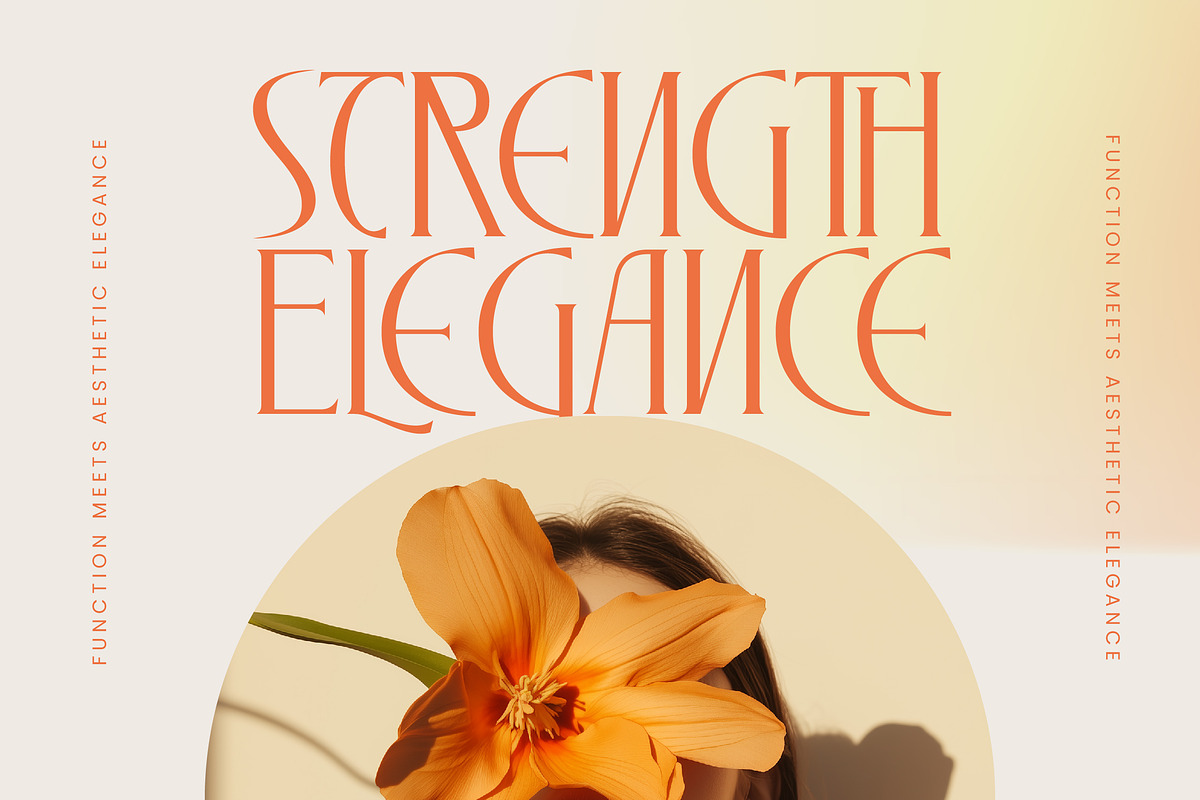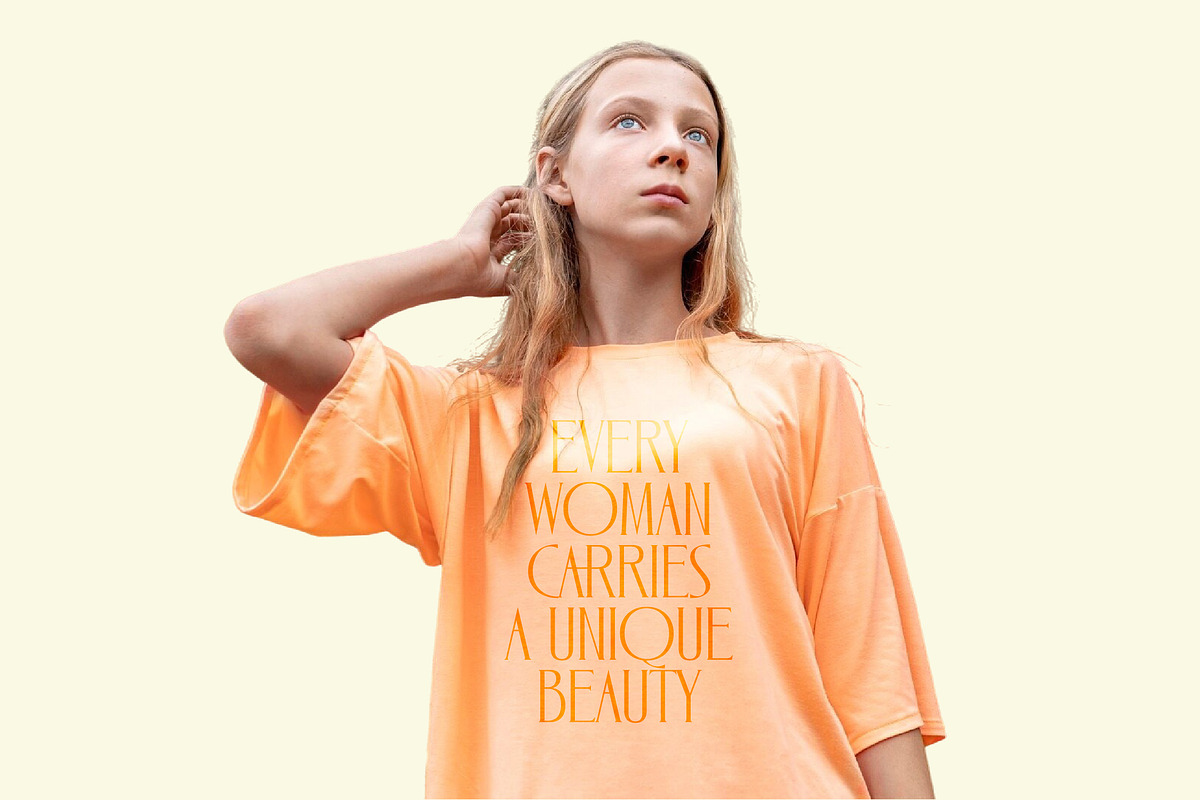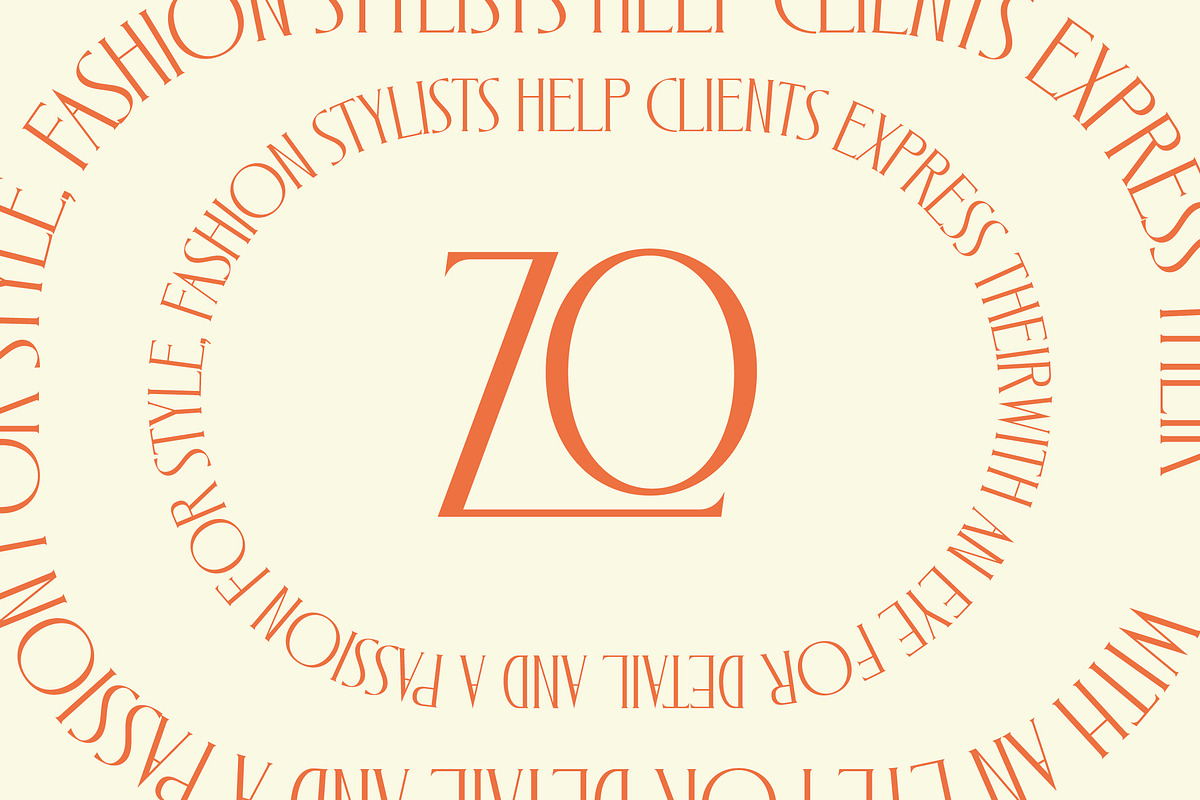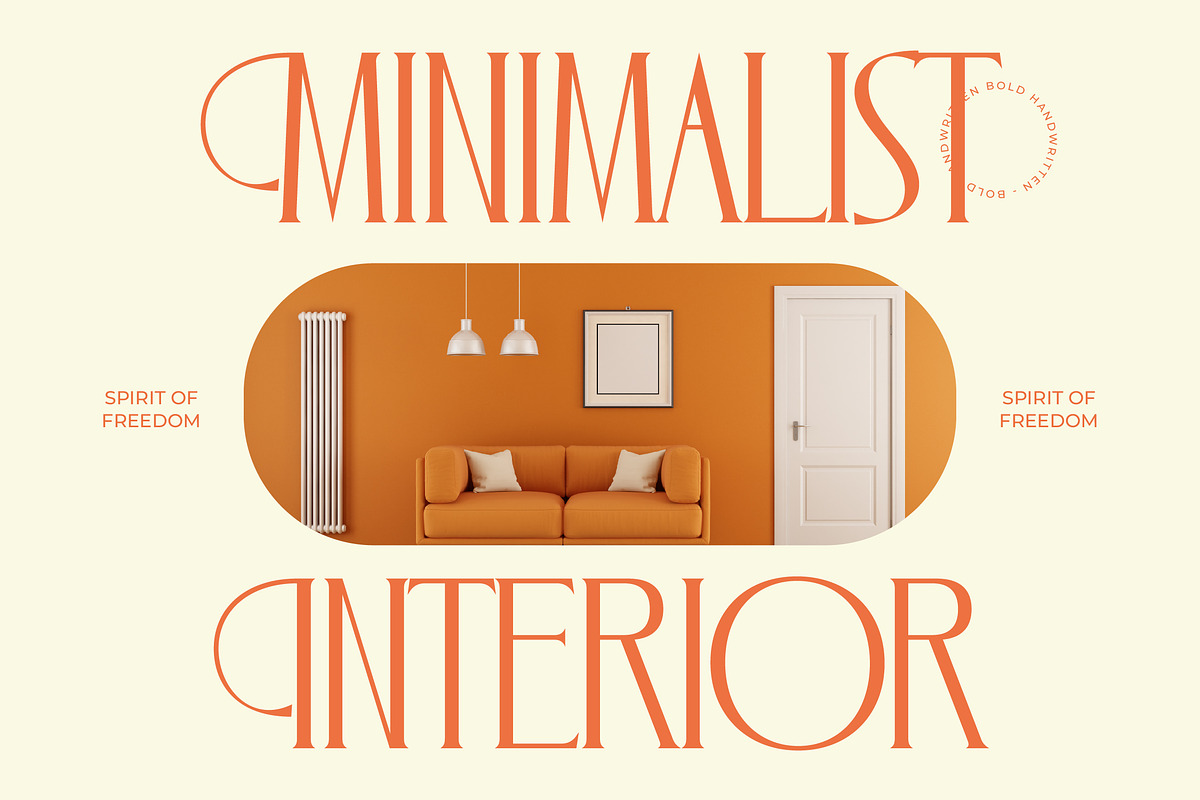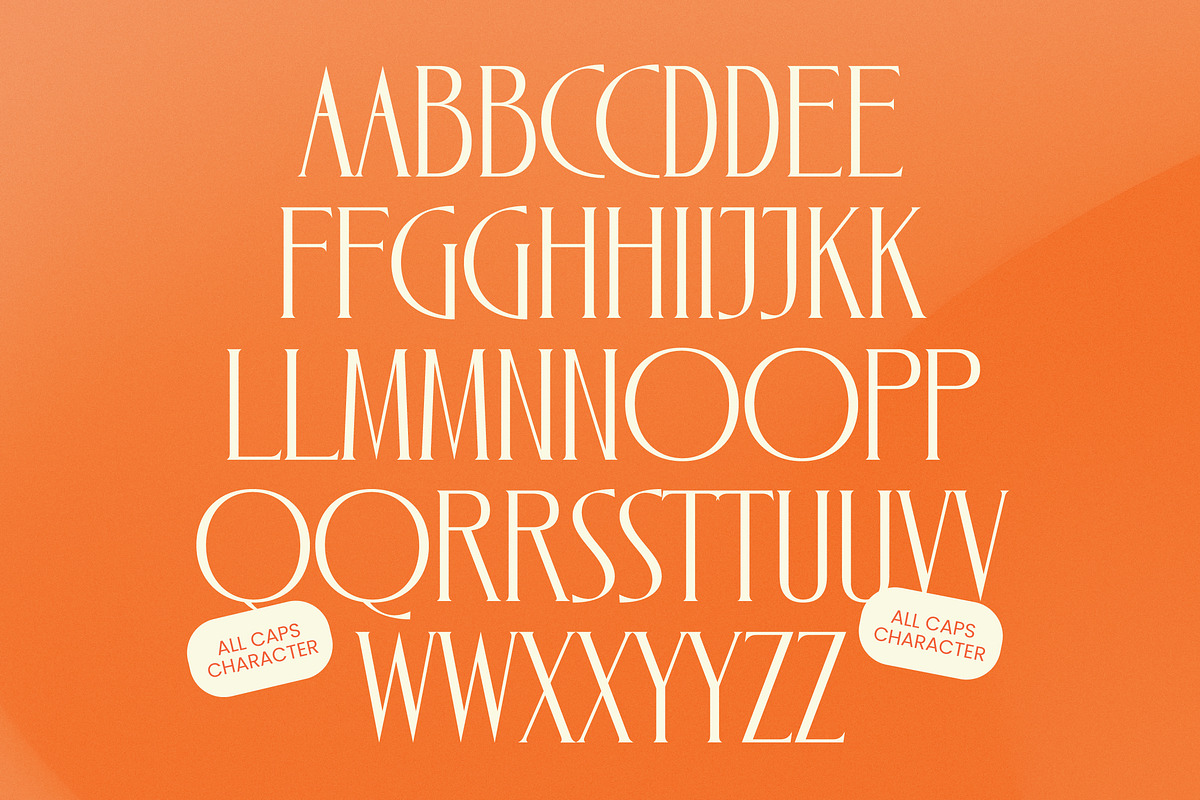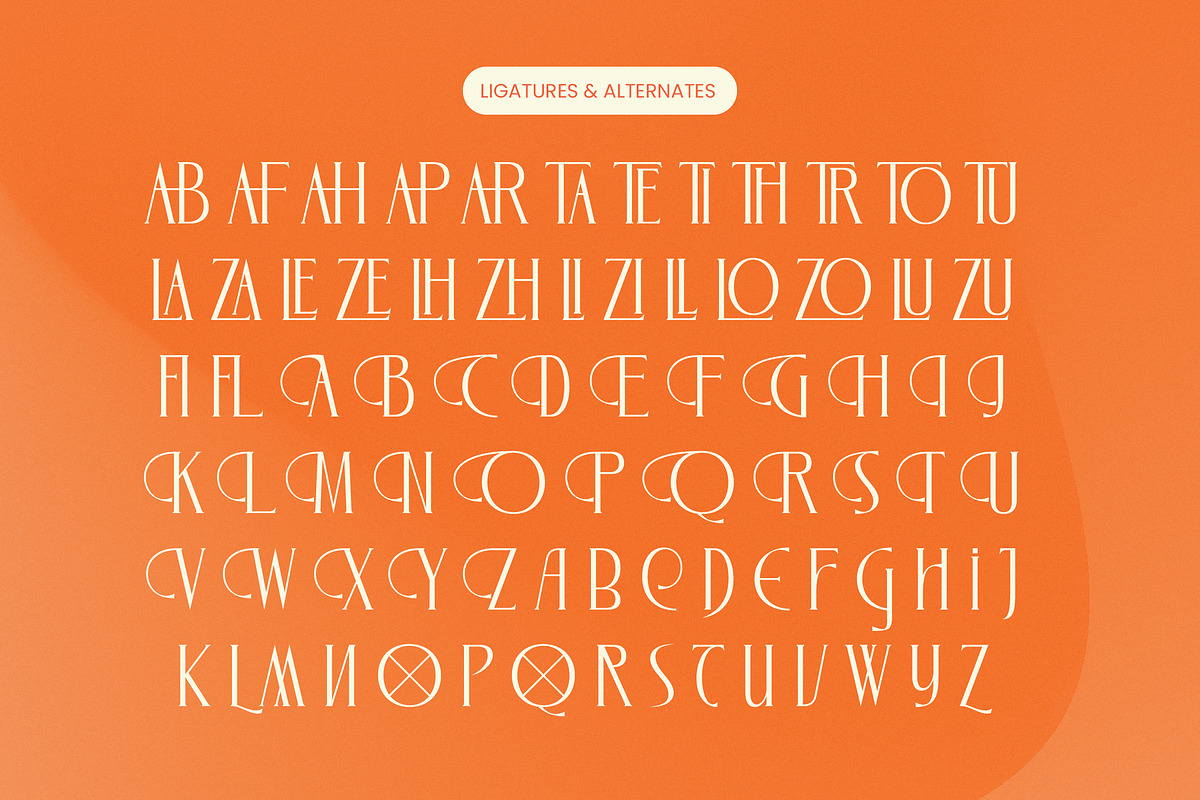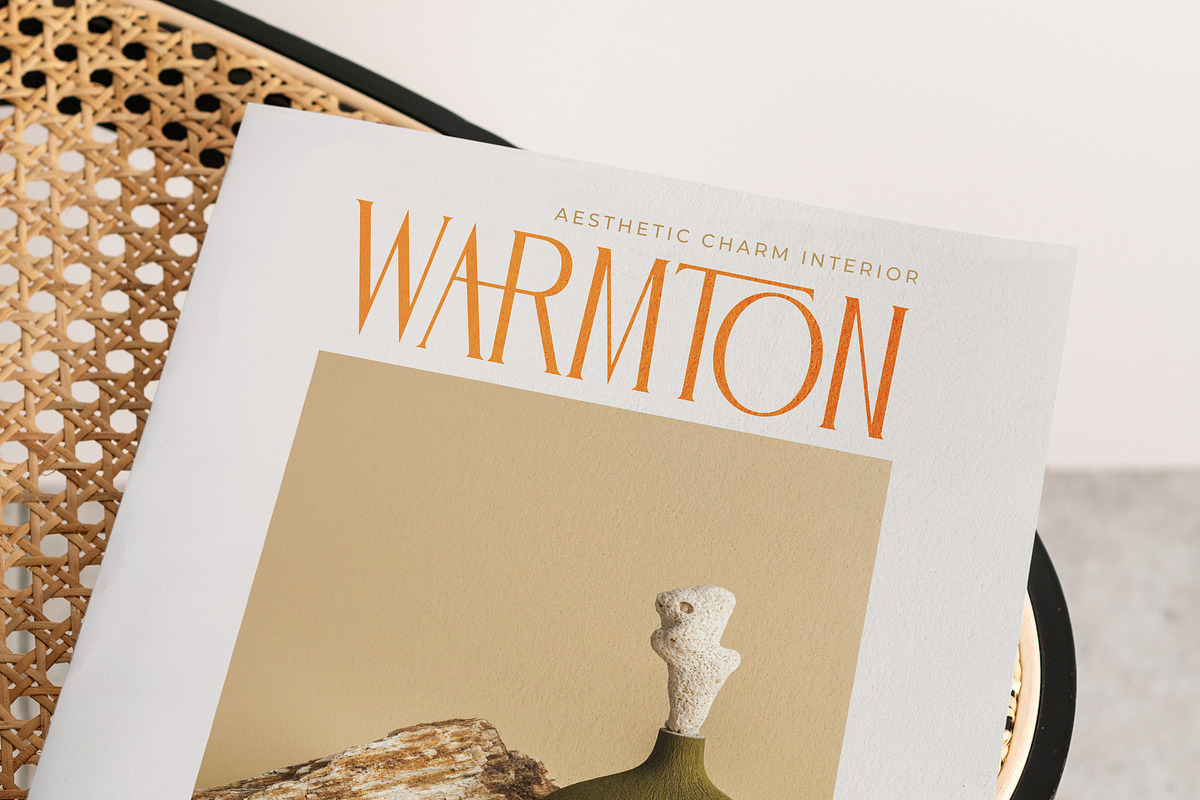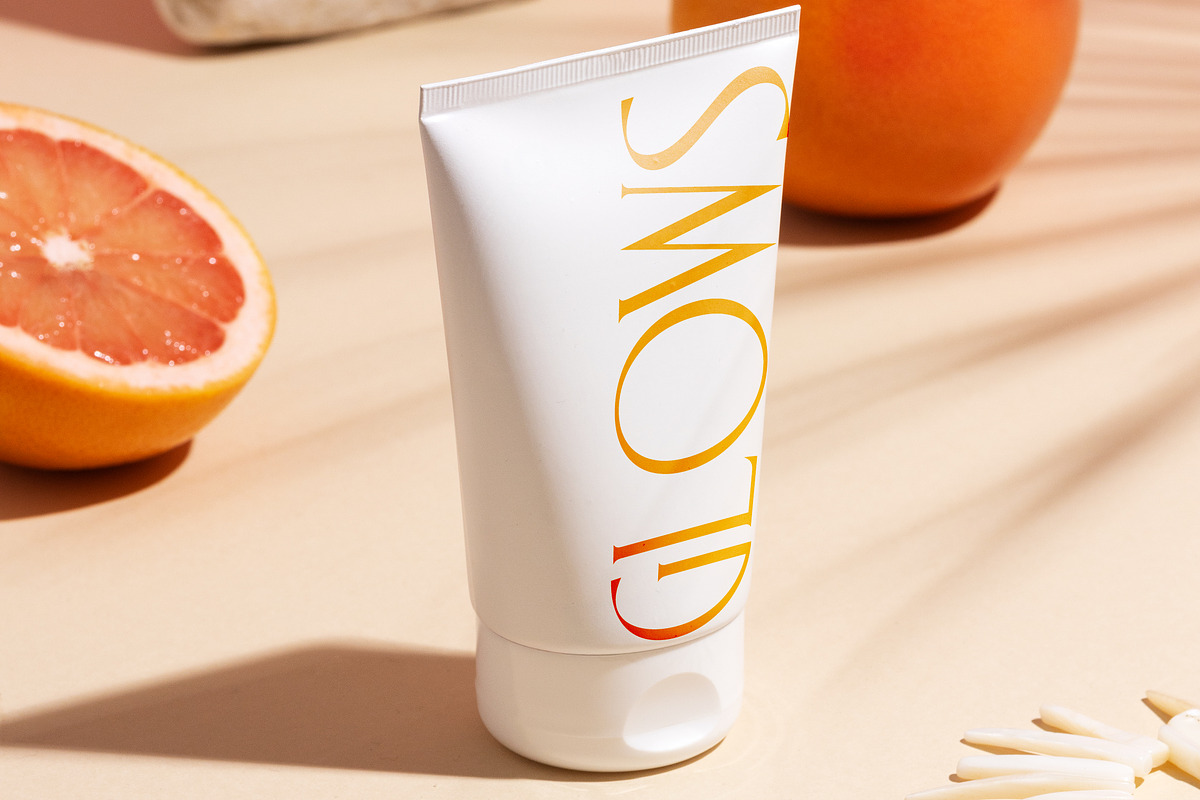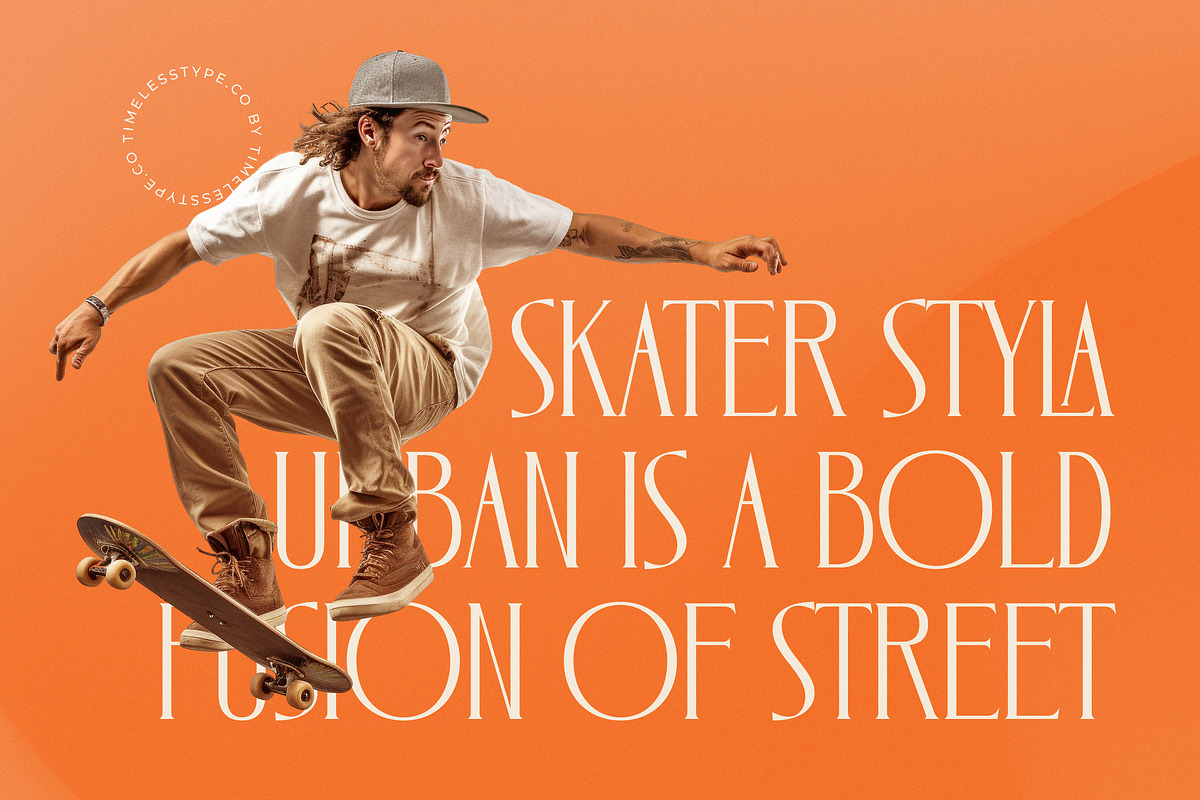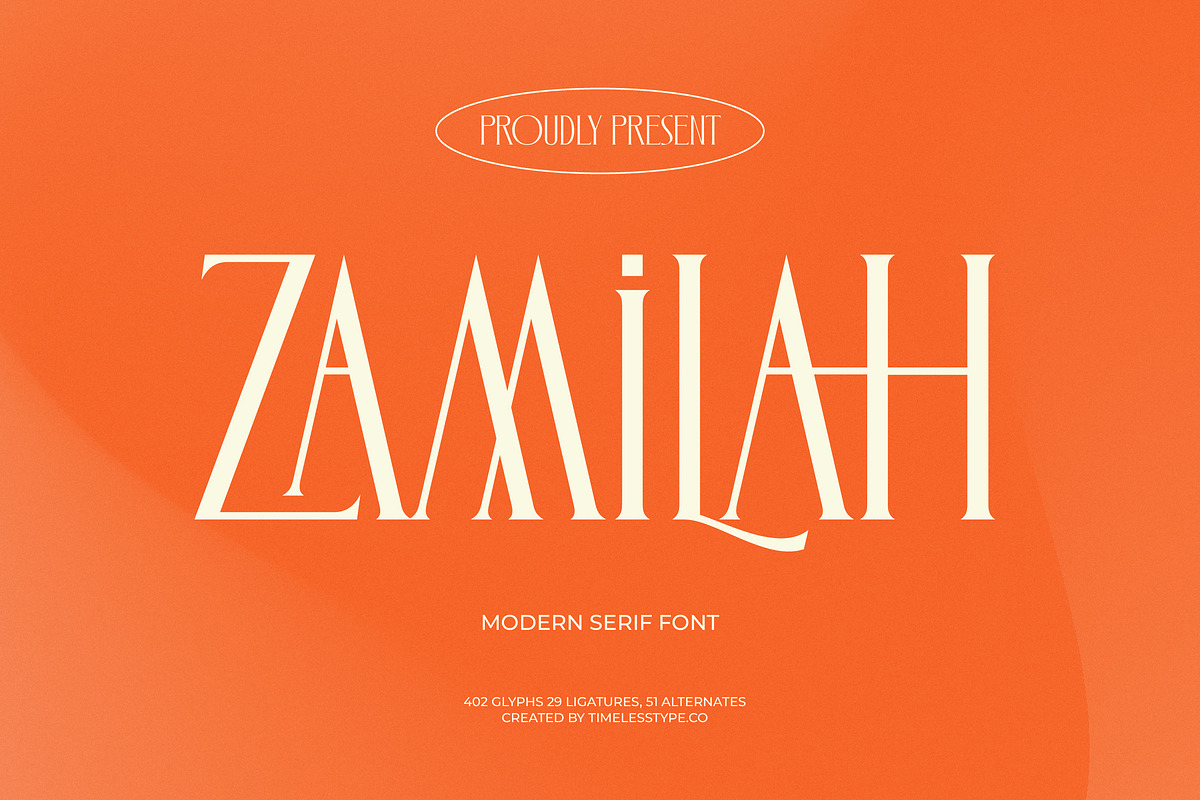
Zamilah Modern Serif Display
Zamilah is a masterclass in modern elegance, blending sharp sophistication with an effortlessly chic aesthetic that commands instant attention. This typeface is meticulously designed to transform ordinary layouts into high-end editorial masterpieces with its striking visual presence and refined proportions.
Drawing inspiration from the sleek lines of high-fashion magazines and the timeless beauty of classic Roman architecture, this font captures a sense of contemporary luxury. The interplay of razor-thin strokes and bold verticality creates a rhythmic harmony that feels both avant-garde and deeply grounded in tradition.
With its modern serif display style, this typeface exudes a luxury typography vibe that is perfect for designers seeking a high-contrast serif with plenty of unique character. Every letterform acts as a statement piece, making it an ideal editorial font for projects that require a significant branding impact and a touch of refined class.
Riding the current wave of the modern serif trend, this typeface meets the rising demand for editorial display fonts that offer more than just standard legibility. Its unique curves and sharp terminals cater to the current craving for character-driven typography that breaks away from minimalism to offer something more soulful and distinct.
This versatile typeface excels in high-end logo design and comprehensive branding identity systems where a premium, upscale feel is essential. From sophisticated editorial layouts and luxury packaging to romantic wedding stationery and sleek fashion branding, it provides the perfect typographic voice for diverse high-tier creative ventures.
The package is professionally loaded with over 400 glyphs, including a vast array of unique ligatures and creative alternates that allow for deep typographic customization. Complete with beautiful swashes and full multilingual support including international characters, this font ensures seamless global communication without compromising on its signature style.
- Ligature 29 Alternate 51